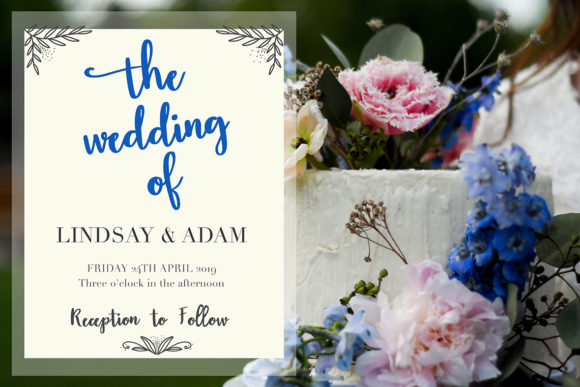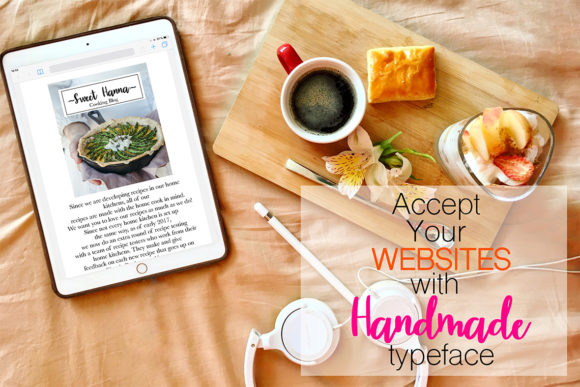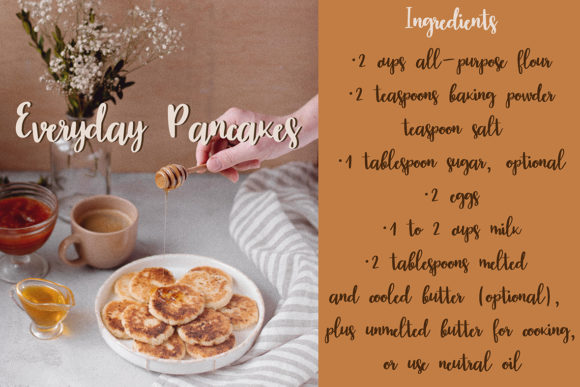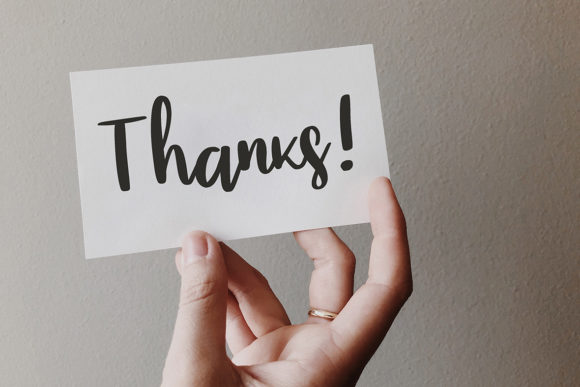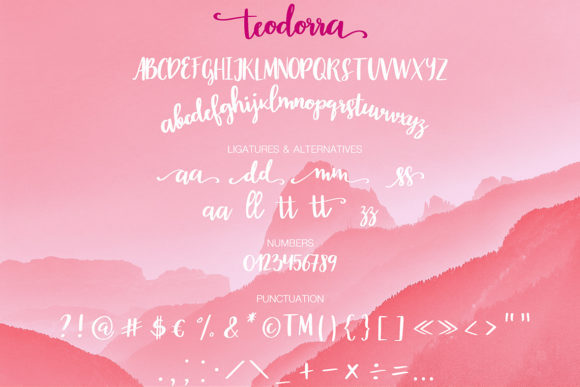
HomeScript FontsTeodorra Font Script Fonts Teodorra Font FacebookXPinterestWhatsApp Teodorra Font Poster 2 Teodorra Font Poster 3 Teodorra Font Poster 4 Teodorra Font Poster 5 Teodorra Font Poster 6 About Teodorra Font Teodorra is a truly beautiful and sweet handwritten font that will add a classy feel to any design project. DOWNLOAD ON CREATIVE FABRICAThis font is sold and delivered by Creative Fabrica. Font Canyon may earn a commission if you buy through this link. People also explored Monkey Paw Font Misty Script Font Shimpatti Font Night in London Font Sillegi Font Ellena Font Bandet Font Best Yoga Font Theodon Joytone Font 291 0 TagsTeodorra Font Previous articleImpressia FontNext articleVulpecula Font LEAVE A REPLY Cancel reply Comment: Please enter your comment! Name:* Please enter your name here Email:* You have entered an incorrect email address! Please enter your email address here Website: Save my name, email, and website in this browser for the next time I comment. Personal Use Free Mahisya Personal Use Free Read more about this font Ancient Script Personal Use Free Read more about this font Andolas Personal Use Free Read more about this font Anggraini Personal Use Free Read more about this font BLOG Where to Buy American Fonts Online in 2024 Where to Buy American Fonts Online: The Ultimate Guide for 2024 Looking for the perfect American font to elevate your design projects? You're in the... To increase your work productivity, choose the most readable fonts. Fonts That Capture the Spirit of New York City Transform Your Website: Elevate Your Typography with 7 Best Web Font Generators